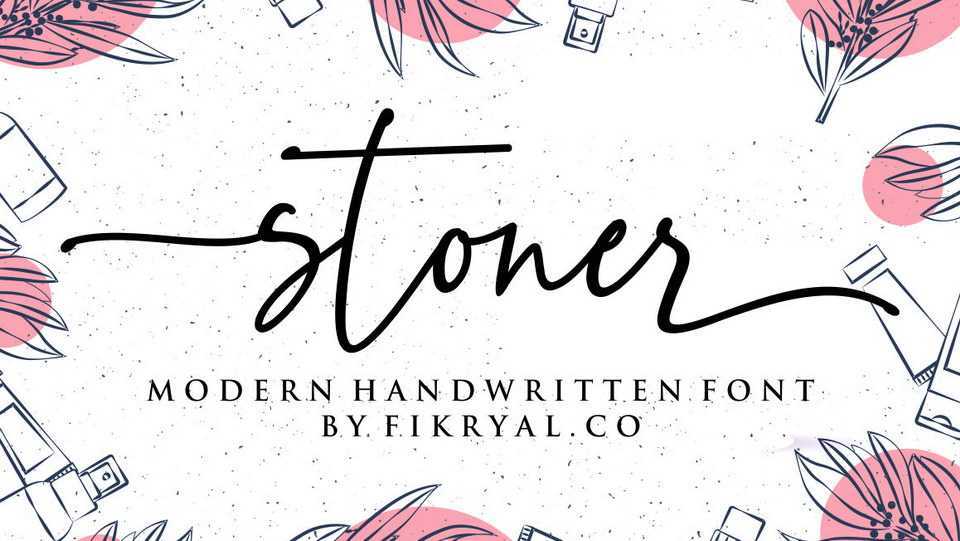
Download Stoner font, a casual handwritten script with a natural and elegant flow. Stoner font is great for personal branding, signature style logos, notes, quotes, social media and more.
Designer: Fikry Alif